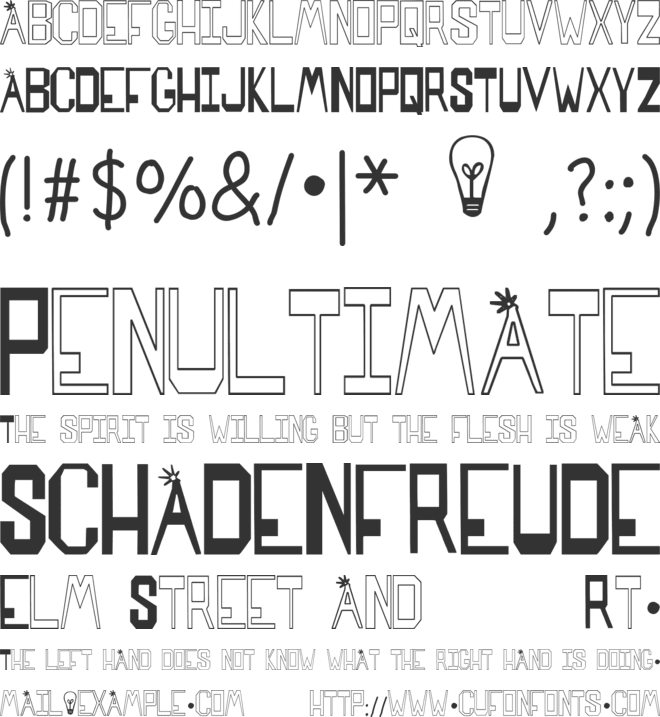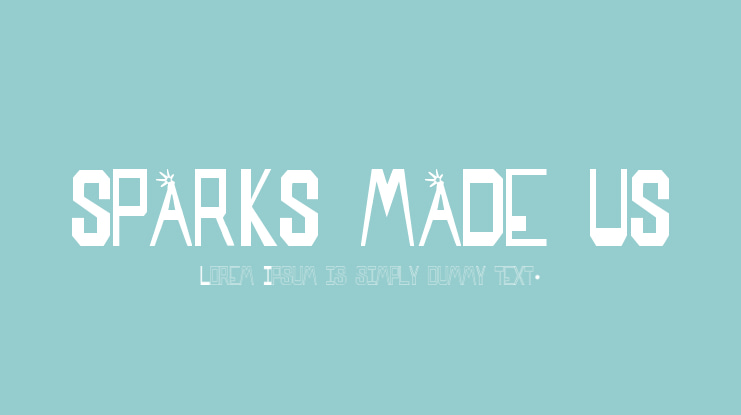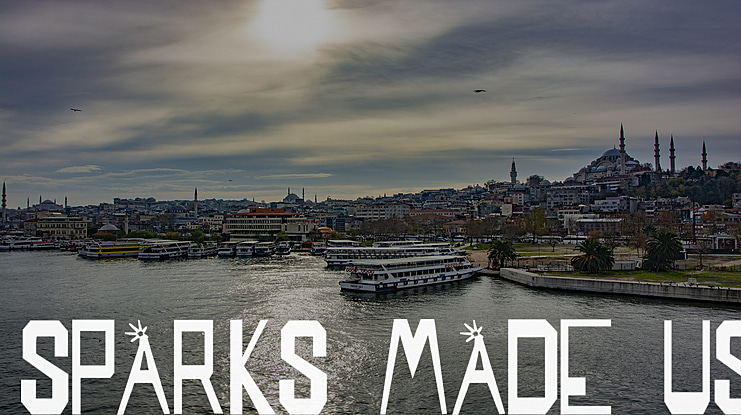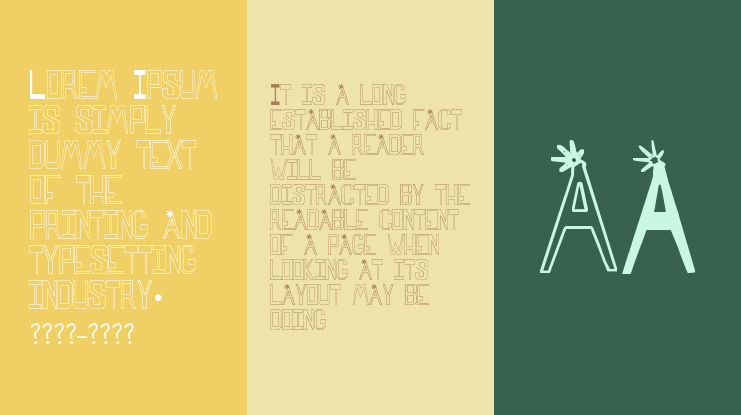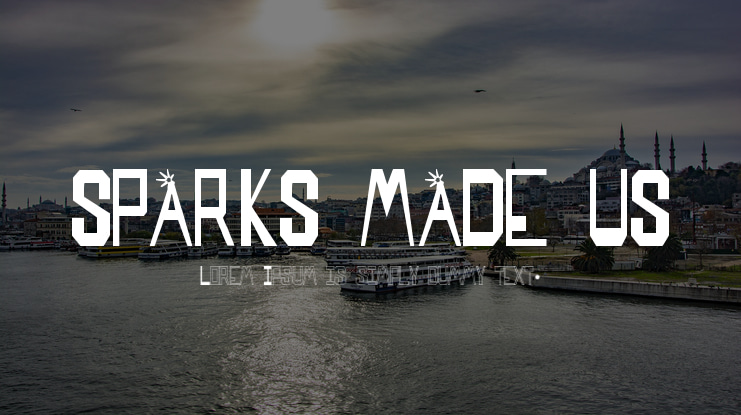
This is the stripped back freeware version for personal use only of the band's official font it only contains all 26 letters, embedding is NOT allowed. This excellent 5 piece indie band are called Sparks Made us, you can follow them and sample their music here;
This is the official font of the Band (Sparks Made Us) is stripped back version is classed as freeware for personal use only, if you would like to follow the band and it's music pleae to go http://sparksmadeus.tumblr.com/ for samples of their latest tracks.